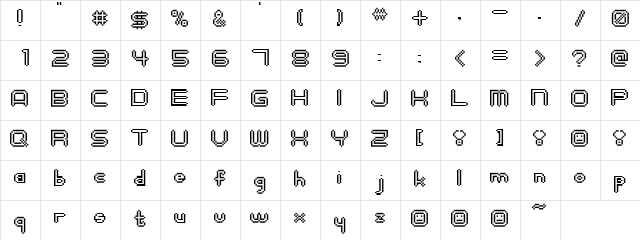
digitalisMAN Regular
Design Context for digitalisMAN Typeface
digitalisMAN channels digital-age aesthetics through its sharp, structured letterforms — ideal for brands that want to signal innovation.
Pro Tip: Try digitalisMAN with generous letter-spacing in UI labels and navigation — the geometric forms benefit from room to breathe.